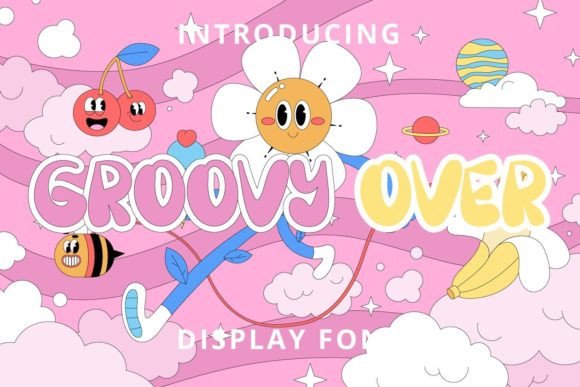
Groovy Over: A Playful Font for Every Occasion
If you're looking for a font that brings a sense of fun and energy to your designs, Groovy Over is a standout choice. This display font has a unique style that blends whimsy with clarity, making it perfect for projects that need a touch of youthful charm. Whether you're creating invitations, promotional materials, or personal branding, Groovy Over can add that extra flair that sets your work apart.
One of the most appealing aspects of Groovy Over is its versatility. It works well in both digital and print formats, allowing you to use it across a variety of platforms. The font's rounded edges and playful curves give it a friendly, approachable feel, which makes it ideal for anything from children's events to casual marketing campaigns.
Party Invitations That Stand Out
When it comes to party invitations, the right font can make all the difference. Groovy Over is particularly effective for events that have a casual or themed vibe. Imagine sending out an invitation for a backyard barbecue or a birthday bash with a custom design that features this font. The playful look of Groovy Over adds a sense of excitement and anticipation, encouraging guests to RSVP with enthusiasm.
For example, if you're planning a summer pool party, using Groovy Over on your invitation can help set the tone. The font's lively appearance complements the relaxed atmosphere of the event, making it clear that this is a fun, laid-back gathering. You can pair it with bright colors and simple graphics to create a design that feels both modern and nostalgic.
Swimming Gatherings with a Unique Touch
Swimming gatherings, whether they're for family members, friends, or community groups, often require a bit of creativity in their promotional materials. Groovy Over can be a great addition to these designs, helping to convey the fun and excitement of the event. Its bold yet soft appearance makes it easy to read while still maintaining a sense of playfulness.
Consider using Groovy Over for a swim meet flyer or a beach day announcement. The font's character helps draw attention without being overwhelming. You can use it as the main heading for the event title, ensuring that it grabs the eye immediately. This is especially useful when designing materials that will be seen in busy environments like schools, community centers, or local pools.
Designs That Need a Youthful Vibe
Many industries benefit from fonts that evoke a sense of youth and energy. Groovy Over is a strong candidate for any project that aims to appeal to younger audiences or maintain a fresh, modern aesthetic. This includes everything from social media posts to product packaging and website headers.
For instance, a local cafΓ© might use Groovy Over in its signage or menu design to create a more inviting and approachable atmosphere. Similarly, a tech startup could incorporate the font into its branding to signal innovation and creativity. The key is to use it strategically so that it enhances the overall message rather than distracting from it.
Personal Projects with a Creative Edge
Individuals who enjoy DIY projects or personal creative endeavors can also find value in Groovy Over. Whether you're making handmade cards, custom t-shirts, or digital art, this font offers a way to express personality and style. Its distinctive look allows for unique expressions that stand out from more traditional typefaces.
Imagine creating a custom greeting card for a friend's graduation. Using Groovy Over as the main text can add a special touch that reflects the celebratory nature of the occasion. It's also a great option for personal blogs or online portfolios where you want to make a strong visual statement.
Considerations Before Using Groovy Over
While Groovy Over is a powerful tool, it's important to consider how it will fit into your overall design. One key factor is readability. Although the font is visually appealing, it may not be the best choice for long blocks of text. Instead, use it for headings, titles, or short phrases where its character can shine without compromising legibility.
Another consideration is the context in which it will be used. For professional settings, such as business proposals or corporate presentations, Groovy Over may not be appropriate. However, in more informal or creative environments, it can be a valuable asset. Always think about the audience and the message you're trying to convey before deciding to use the font.
Exploring Different Applications
The beauty of Groovy Over lies in its ability to adapt to different scenarios. For example, it can be used in educational materials to make learning more engaging, or in retail environments to attract attention at a glance. Its flexibility means that it can be tailored to fit a wide range of needs, making it a go-to choice for designers and creatives alike.
Additionally, Groovy Over can be paired with other fonts to create a balanced and cohesive look. Combining it with a more traditional typeface can help maintain professionalism while still adding a touch of personality. Experimenting with different combinations can lead to exciting and unexpected results.
Ultimately, Groovy Over is more than just a fontβit's a tool that can bring joy and creativity to your work. By understanding its strengths and limitations, you can use it effectively to enhance your designs and connect with your audience in a meaningful way. Whether you're planning a party, launching a new project, or simply looking to add some flair to your next creation, Groovy Over is a font worth considering.